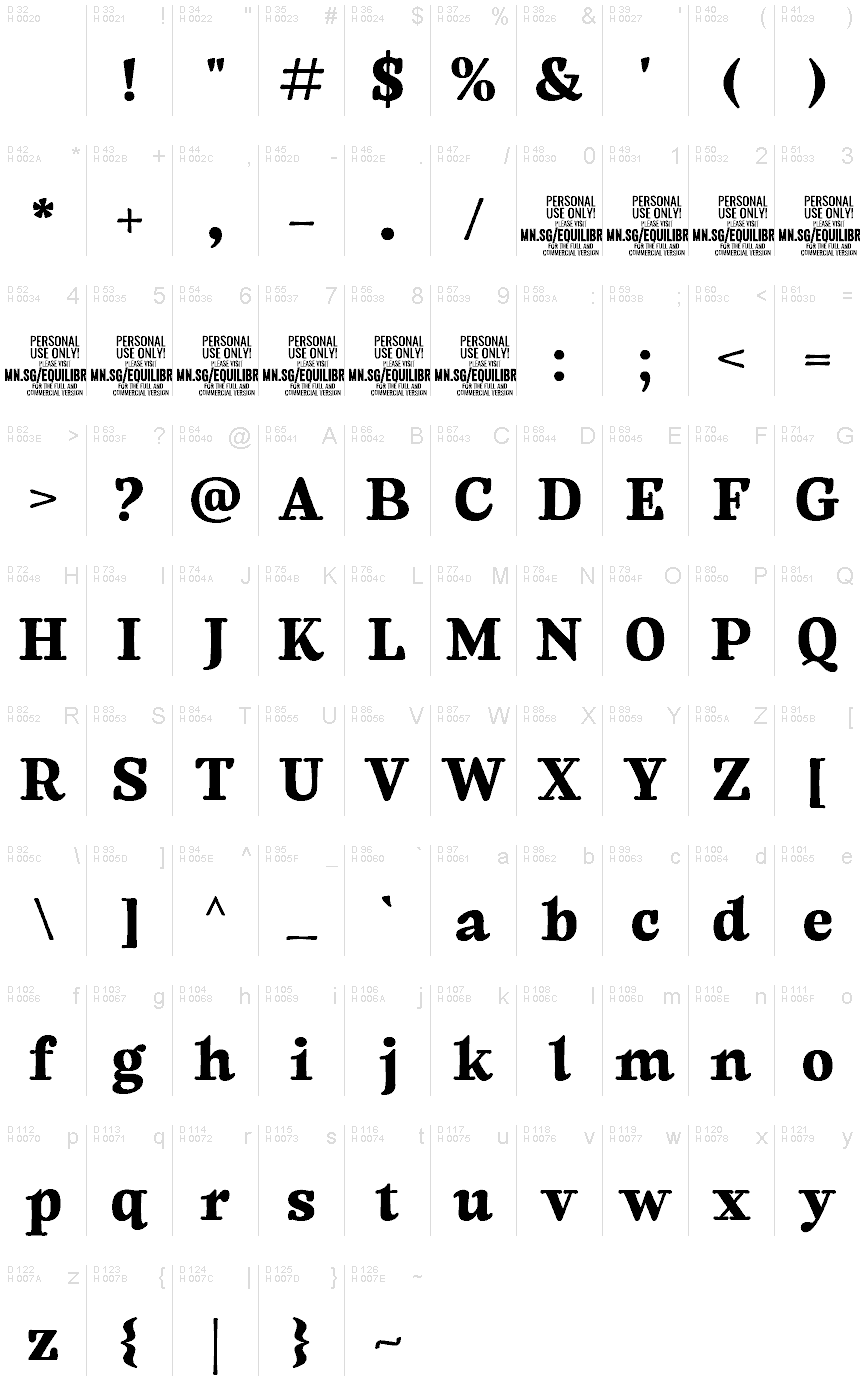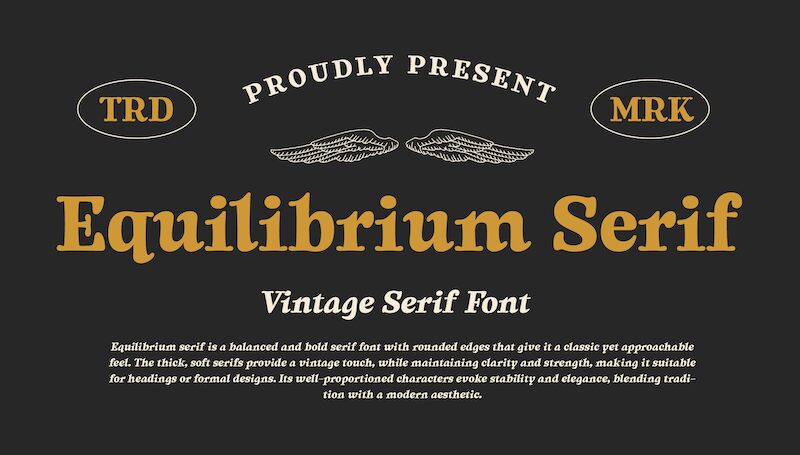
Equilibrium Serif font by Mans Greback is a bold serif font that blends a classic feel with a modern edge. Strong and sophisticated, it features a timeless style and balanced shapes within each character. A perfect equilibrium between modern flair and traditional style was the main goal while designing it. And this is exactly what you’ll enjoy using Equilibrium which, we must say, doesn’t only come with aesthetic benefits but versatile ones too.
Combine this typeface in any of your typography projects that require stylish titles or headlines. Seize its availability in magazines, branding, marketing copies, accessories’ branding ideas, shops sign decorations or stationery packaging. The font also fits typesetting for web pages (both visual front-end mockups and code) or advertising on digital platforms like social media or newsletters.
Equilibrium Serif's neo-classic design evokes a sense of timelessness, while the gentle glow of its smooth curves adds a warm, inviting touch.
Equilibrium Serif is versatile, suitable for both formal and modern contexts, making it perfect for projects that require refined charm.